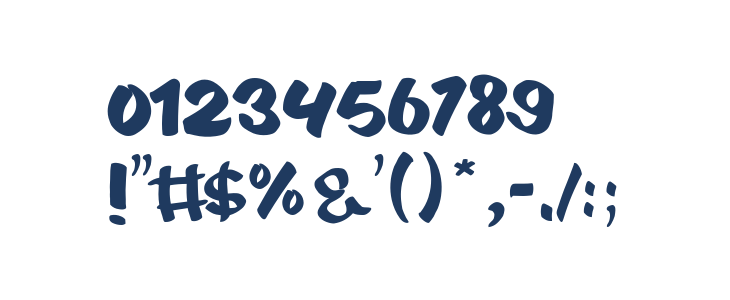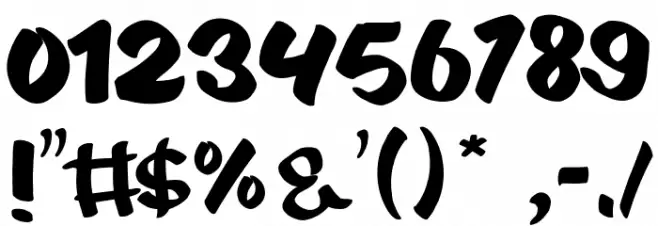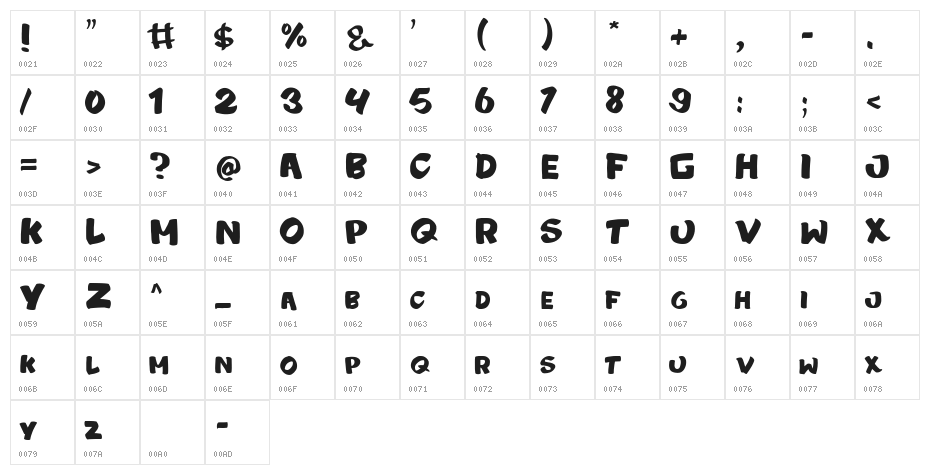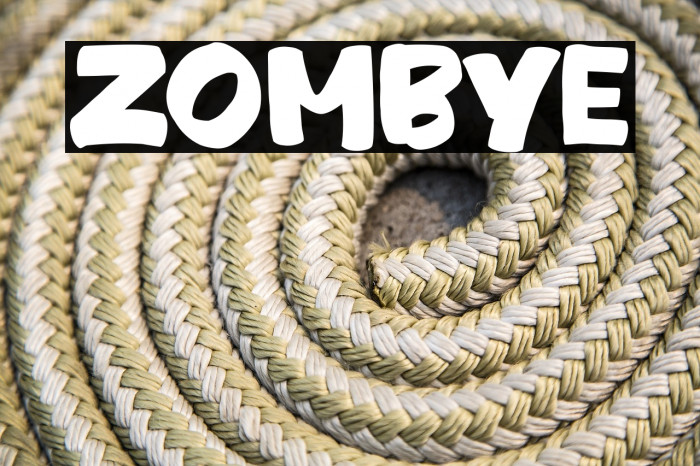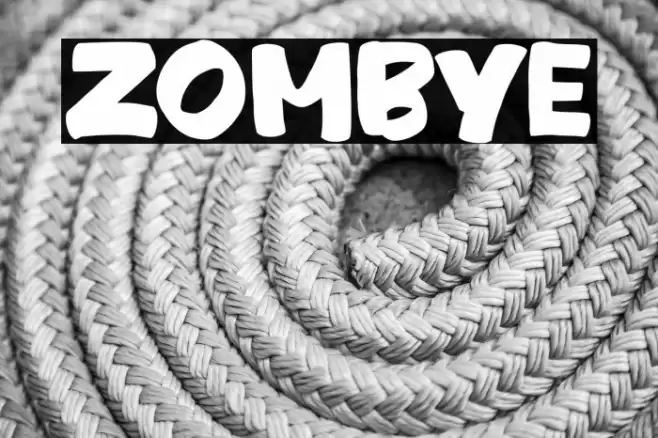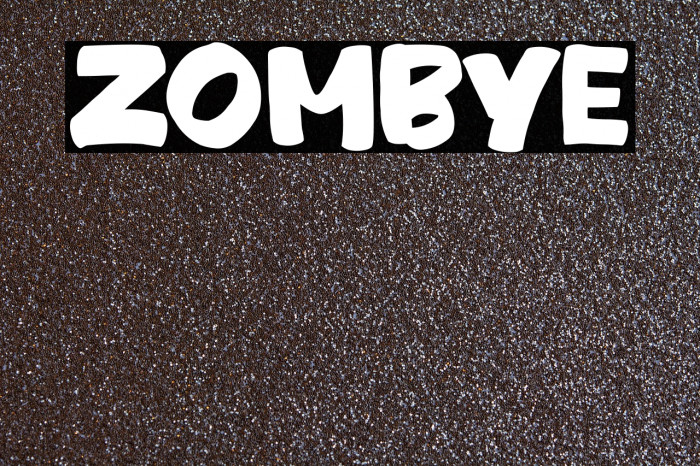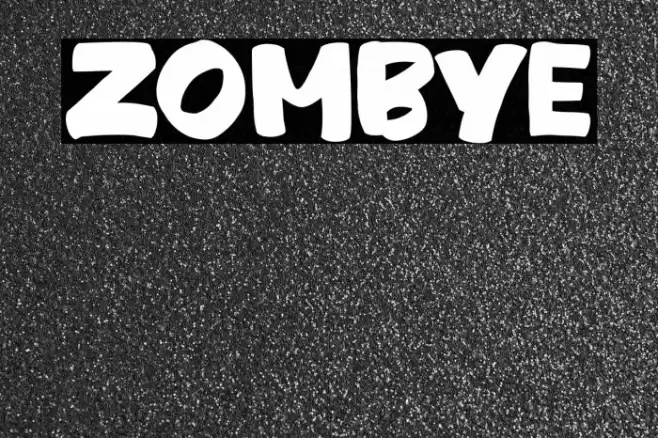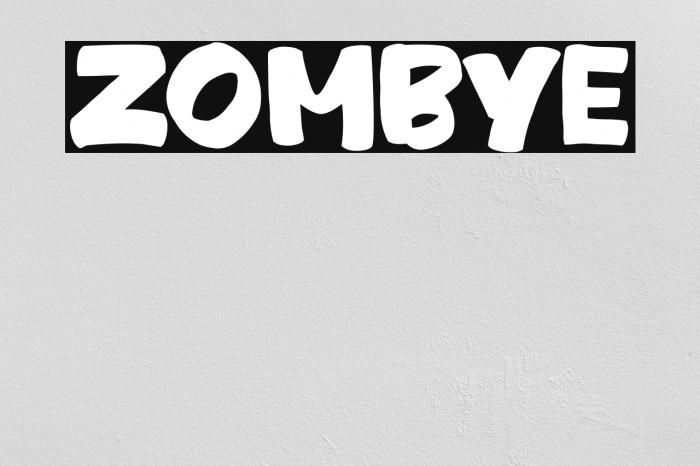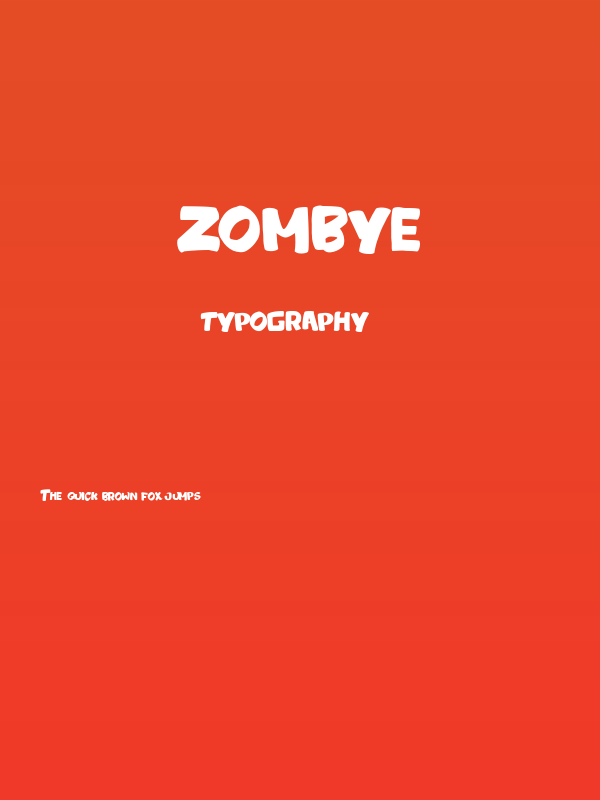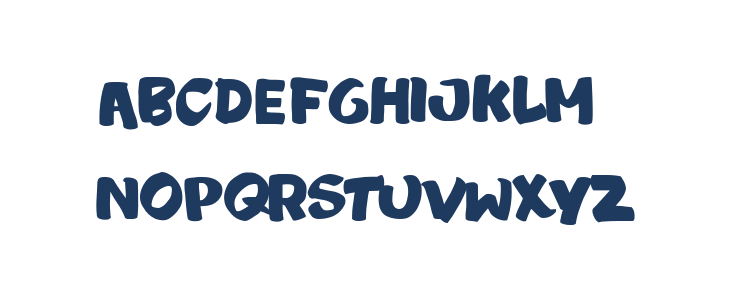
ZOMBYE Font
ZOMBYE Description
This font features a bold and playful style with a hand-drawn appearance. The characters are rounded and slightly irregular, giving them a casual and friendly vibe. The uppercase and lowercase letters maintain a consistent thickness, contributing to a cohesive look. The numbers and special characters follow the same design principles, ensuring uniformity across all elements. The font's boldness makes it highly legible, even at smaller sizes, while its unique style adds a touch of personality to any text. It's ideal for projects that require a fun and approachable aesthetic.
| Overall Style | Playful, Casual |
| Proposed Projects | Great for children's books, comic strips, playful branding, and casual invitations. |